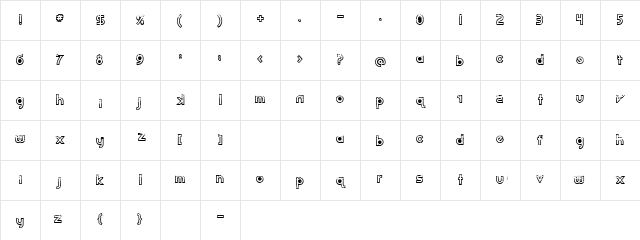
Dirt2 Echo Regular Free Font
Dirt2 Echo Regular
Design Context for Dirt2 Echo
Dirt2 Echo is a composed and adaptable typeface that performs quietly and consistently across a wide range of design contexts.